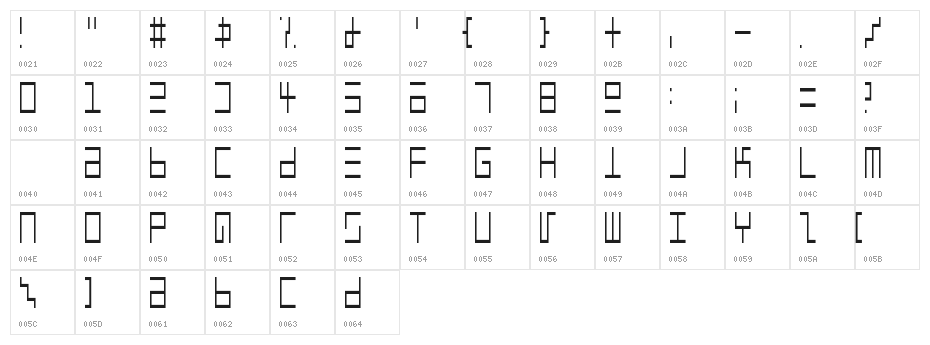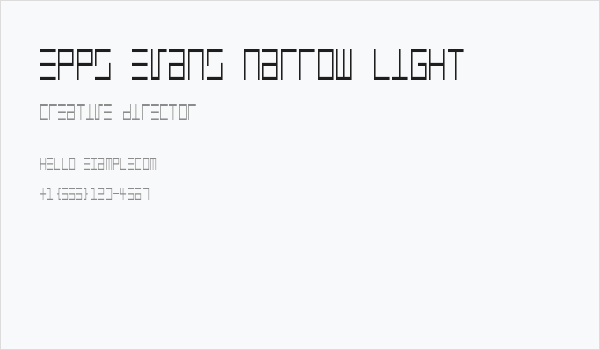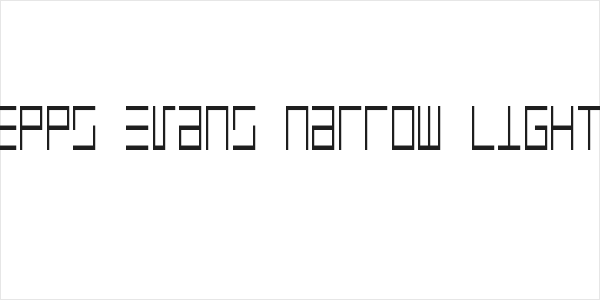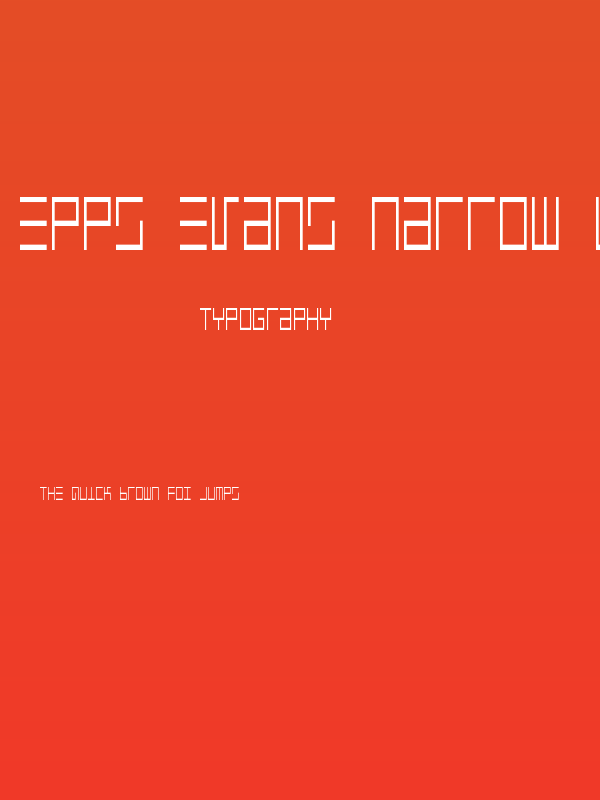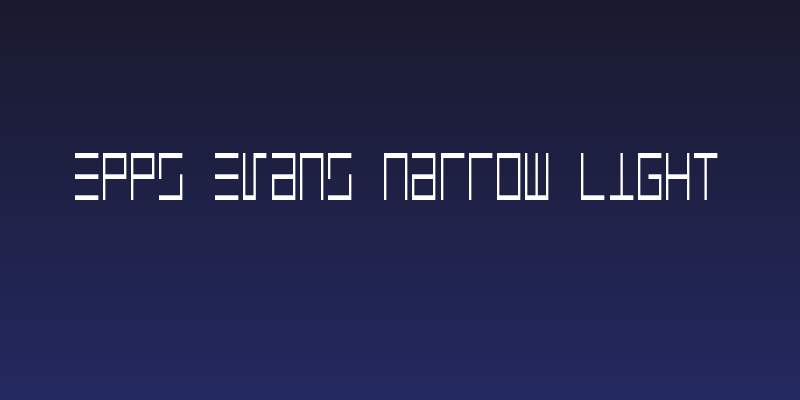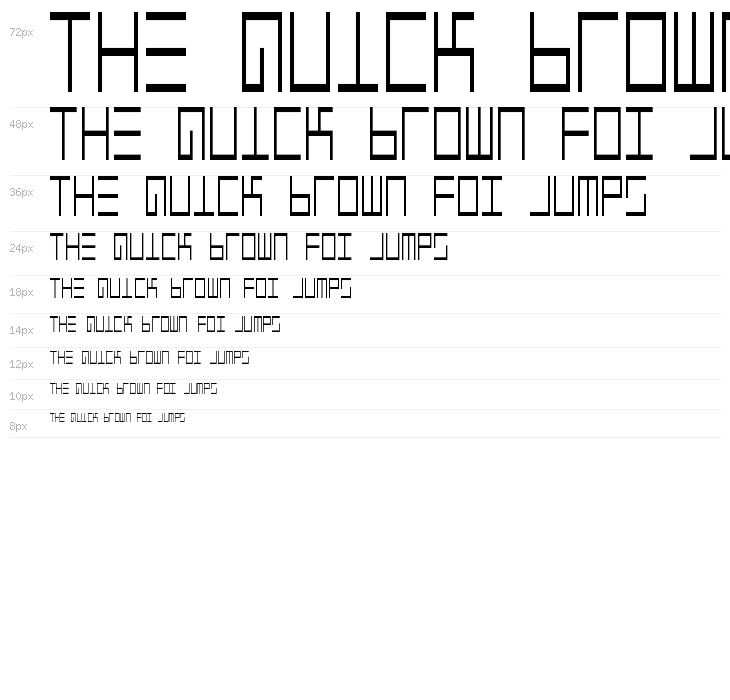
Epps Evans Narrow Light Font
Epps Evans Narrow Light Description
This font features a geometric and modern design, characterized by its narrow and linear structure. Each character is composed of straight lines and right angles, giving it a digital or futuristic appearance. The uniformity in stroke width across all characters provides a clean and minimalistic look. The uppercase and lowercase letters maintain a consistent height, enhancing readability while preserving a unique style. Numbers and special characters follow the same design principles, ensuring a cohesive visual identity throughout. The font's simplicity and clarity make it suitable for various digital and print applications.
| Use Case | Headlines, Logos, Digital interfaces |
| Proposed Projects | Ideal for digital interfaces, tech branding, modern posters, and minimalist design projects. |